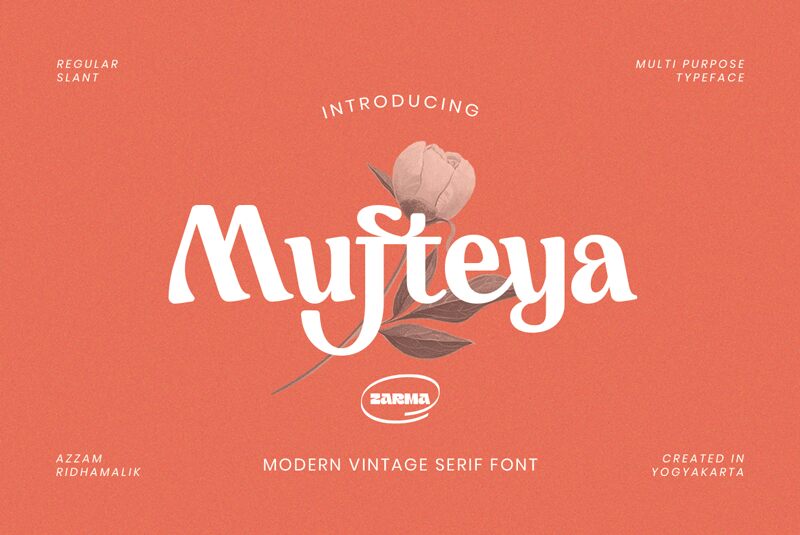
Mufteya, the retro display font by Zarma Type Foundry, adds a touch of vintage charm to any project. Its semi-bold weight exudes confidence and grabs attention effortlessly. Perfect for branding and packaging designs, Mufteya lends a nostalgic feel to logos and labels. Its playful yet refined style also makes it an ideal choice for posters and social media graphics, evoking a sense of nostalgia that resonates with diverse audiences. Let Mufteya transport your designs back in time while staying relevant in today's creative landscape.
Mufteya Regular
Azzam Ridhamalik